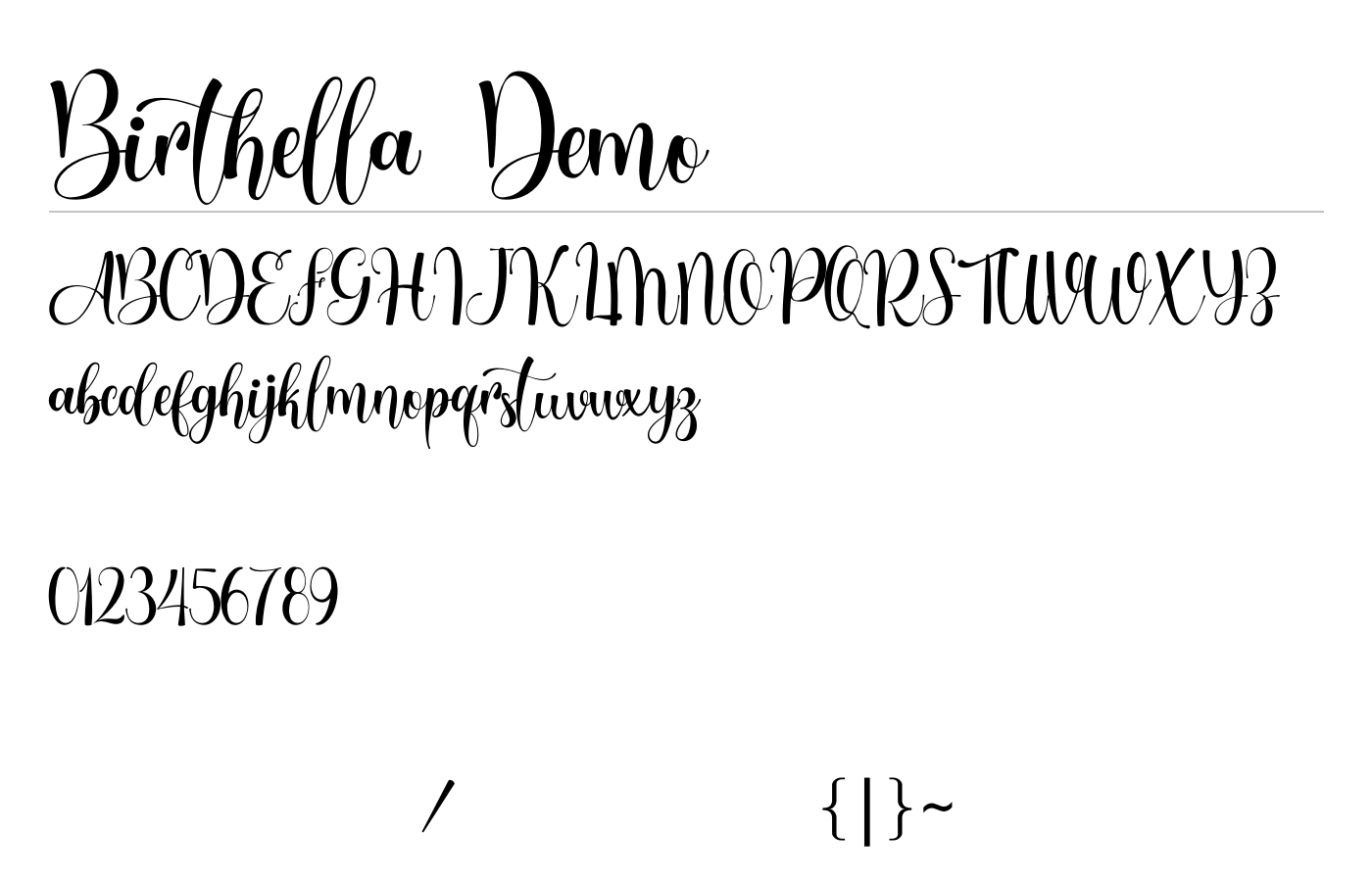
Birthella Demo is an elegant script font featuring flowing, hand-lettered style with slender strokes and graceful swashes, giving it a stylish and feminine charm. Its medium contrast and smooth curves make it perfect for invitations, branding, and decorative headlines that need a touch of sophistication and warmth. This font works especially well in fashion, beauty, and lifestyle contexts where a delicate and artistic feel is desired.
Birthella Demo Font
About Birthella Demo Font
| Font family | Birthella Demo Font |